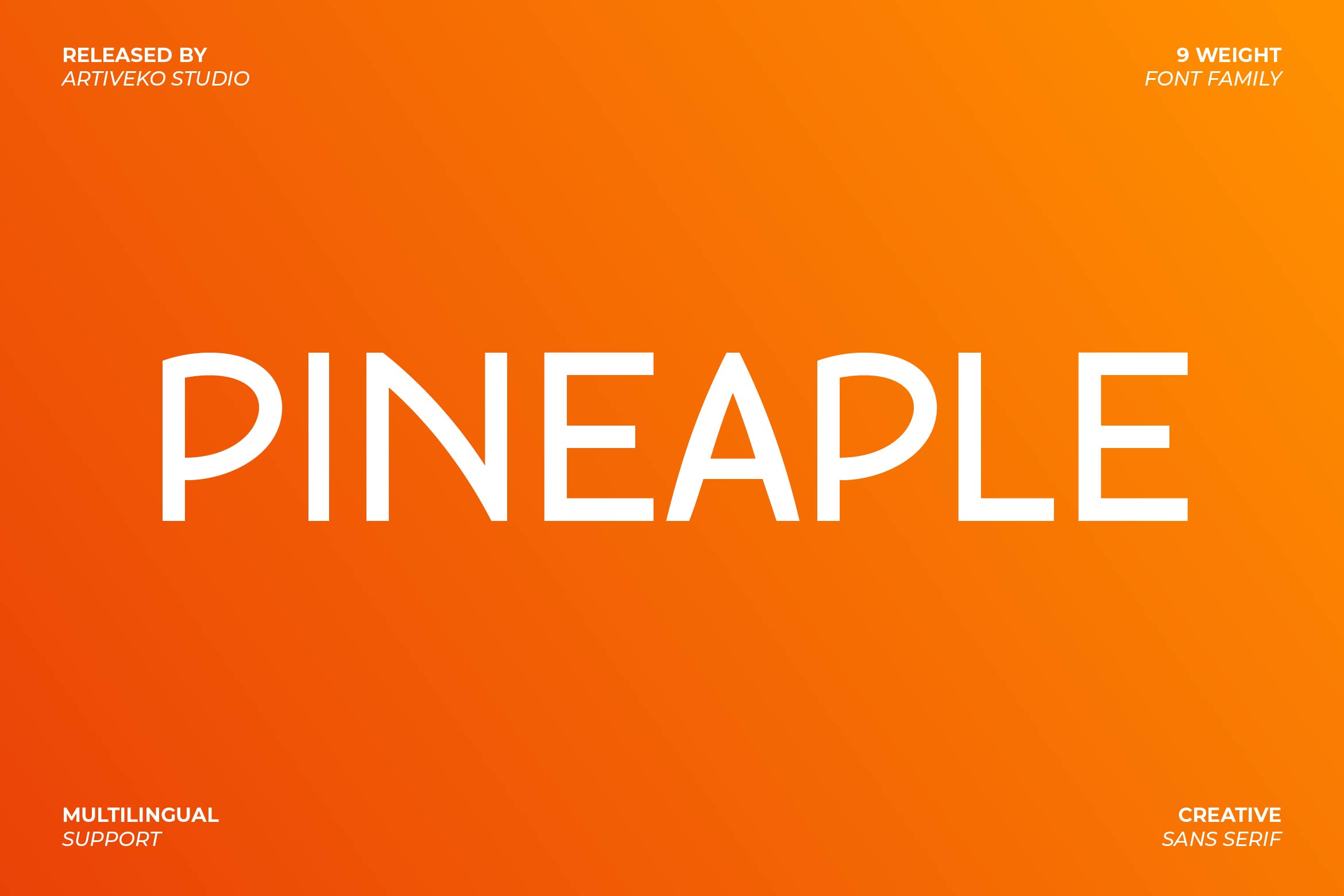
- Pineaple Modern Sans Serif Font
Pineaple is a clean and versatile sans serif font designed to bring clarity and a touch of modern freshness to your typography. With smooth curves, balanced proportions, and a minimalist structure, Pineaple is perfect for branding, editorial layouts, packaging, web design, social media graphics, and digital presentations.
Its contemporary yet approachable style ensures excellent readability in both large headlines and smaller text applications. Pineaple adapts effortlessly to a wide range of design projects, from lifestyle and fashion brands to tech startups and creative campaigns.
The font includes uppercase and lowercase letters, numerals, punctuation, multilingual support, and stylistic alternates for enhanced flexibility.
Give your designs a fresh and modern look with Pineaple — the sans serif font that combines simplicity, style, and timeless elegance.